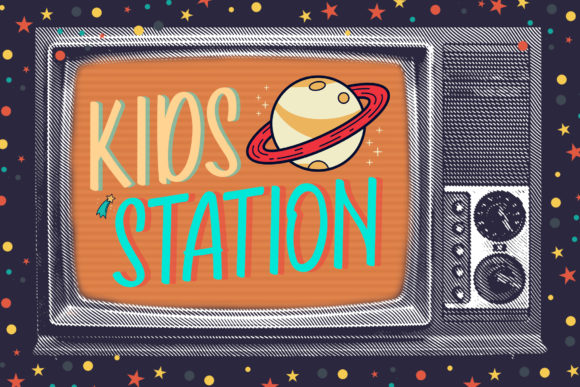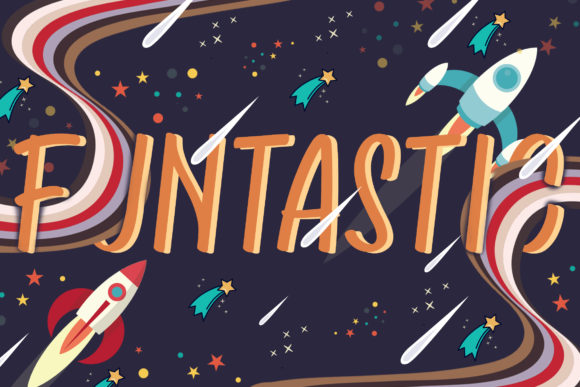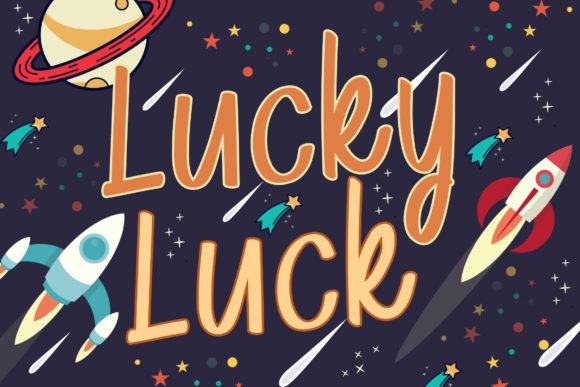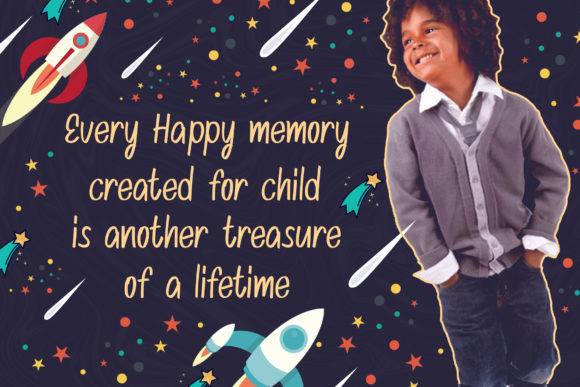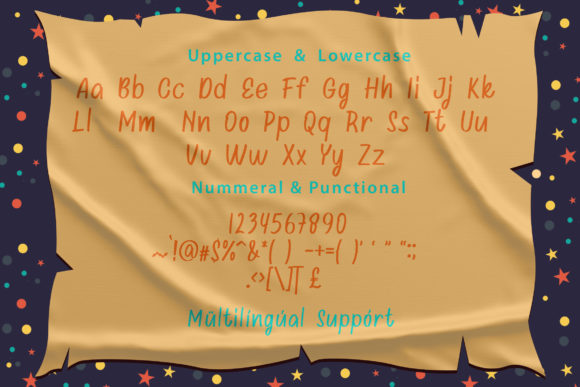
The Joy of Fastone Font: A Designer’s New Best Friend
I’ll never forget the time I was working on a project for a children’s party invitation. I had the design concept all sorted out, but I was stuck on finding the perfect font. I wanted something that would scream “fun” and “playful” without being too over-the-top. That’s when I stumbled upon Fastone Font, and let me tell you, it was love at first sight! 💕
Fastone is a cute and quirky display font that has become my go-to for adding a joyful touch to my designs. Its unique charm and character make it perfect for creative projects that need a bit of personality. In this article, I’ll share my honest review of Fastone, a step-by-step guide on how to use it on different platforms, and some similar font alternatives you might enjoy.
Honest Review: What I Love (and a Few Quirks)
- Fastone is ridiculously easy to read, even at smaller sizes ✅
- The quirky, hand-drawn feel adds a touch of whimsy to any design 🎉
- It’s incredibly versatile and works well for titles, headings, and short paragraphs 📚
- The font comes with a range of OpenType features, glyphs, and stylistic alternates 🔍
- Fastone can be a bit too playful for very formal or professional designs ⚠️
- Some characters may not work well at very small sizes (less than 10pt) ⏰
- It’s not the best choice for long blocks of text, as it can get a bit tiresome to read 📖
The Story Behind Fastone: A Designer Inspiration
Fastone was created by a talented font designer who wanted to bring a bit of joy and whimsy to the world of typography. Inspired by childhood memories of playing with colorful markers and crayons, they crafted a font that would evoke a sense of playfulness and creativity. And so, Fastone was born! 🎨
| Font Name | Fastone Font |
| Author | Typia Nesia |
Q: Is Fastone suitable for body text?
While Fastone is a beautiful font, it’s best suited for titles, headings, and short paragraphs. For longer blocks of text, you might want to choose a more traditional font.